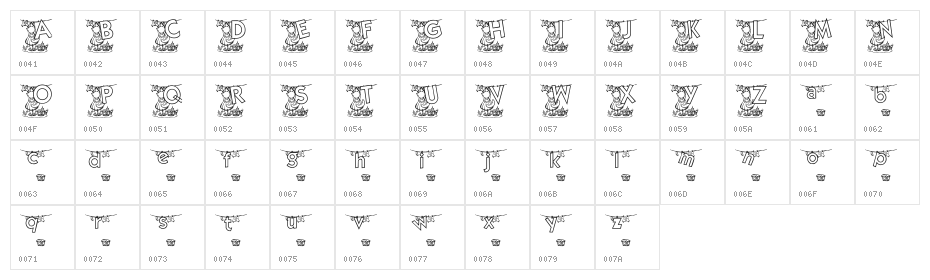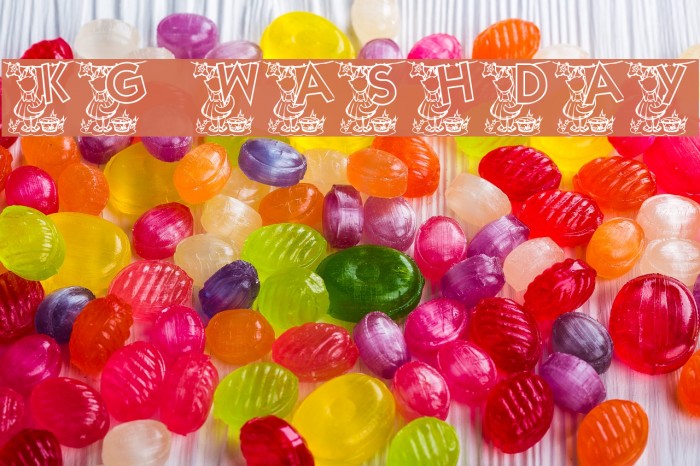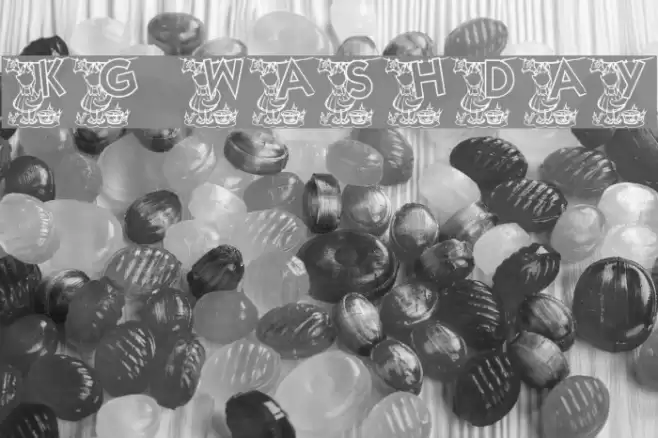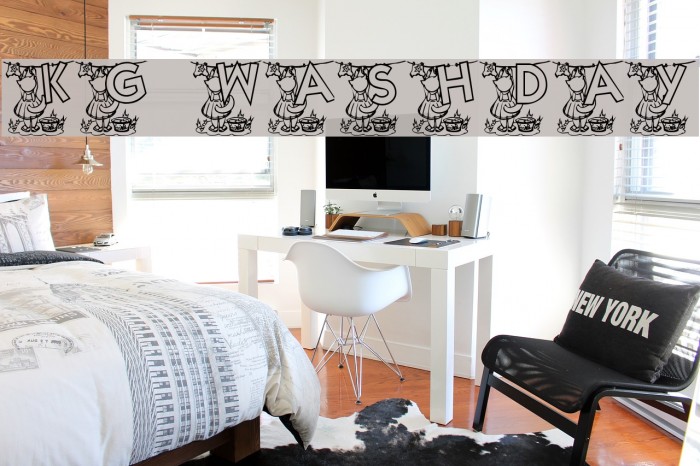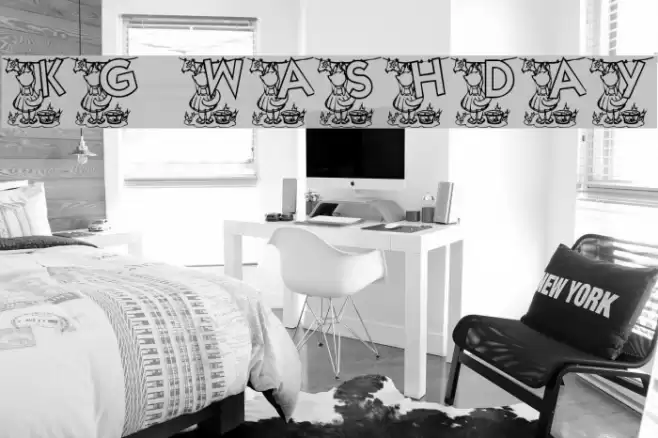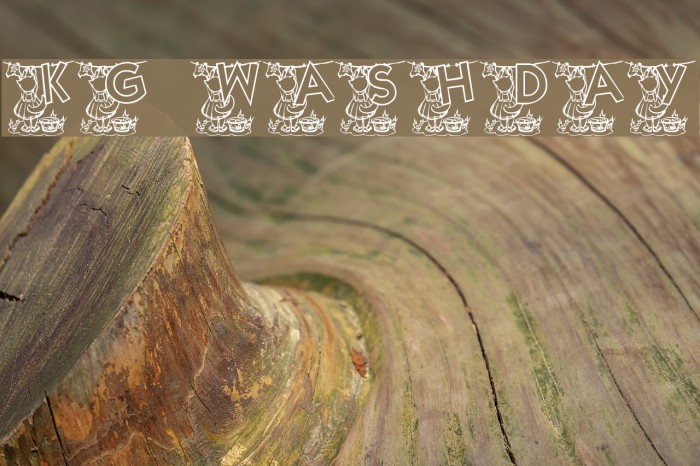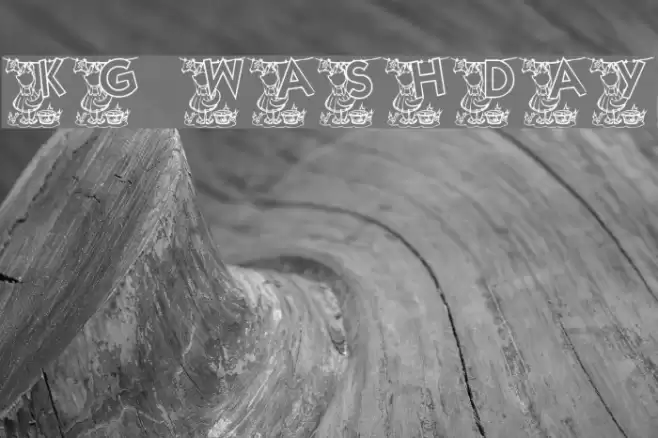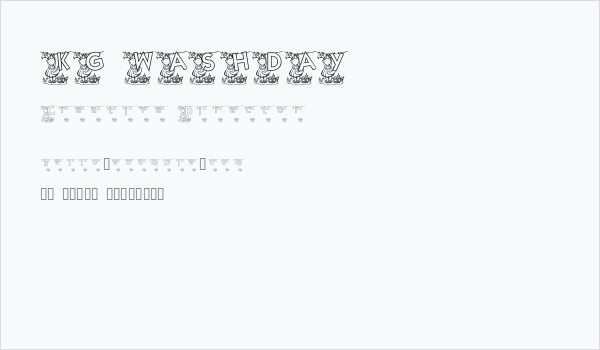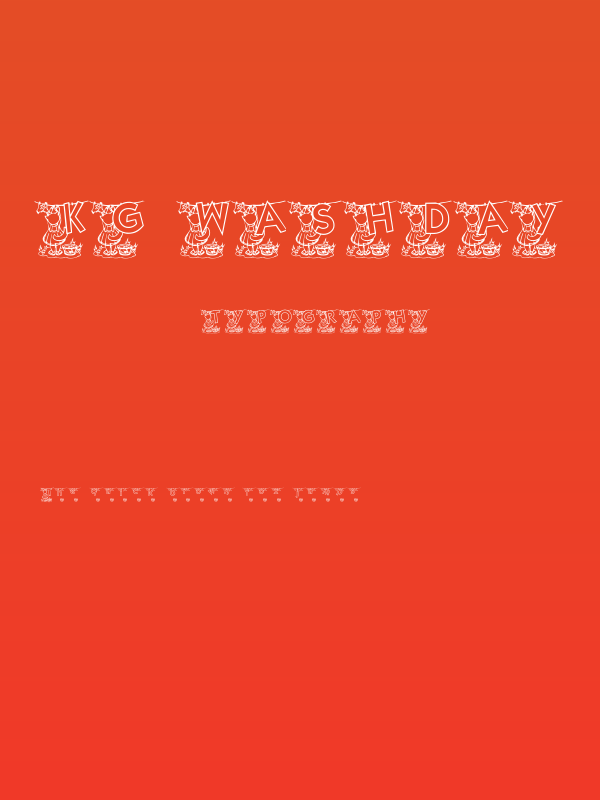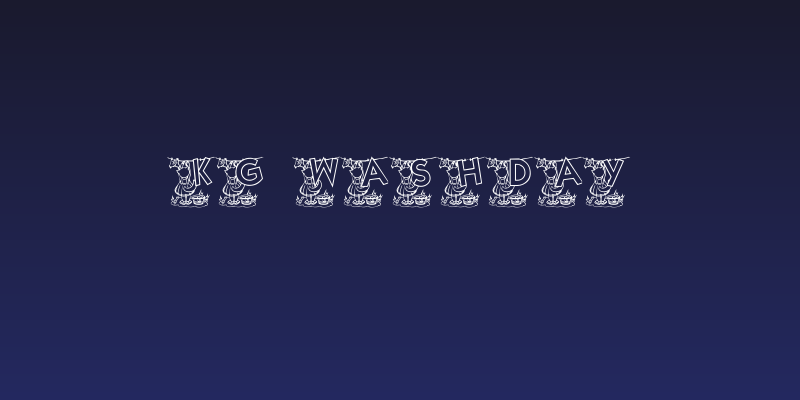
KG WASHDAY Font
KG WASHDAY Description
This whimsical and playful font features letters hanging on a clothesline, each character accompanied by a small illustration of a laundry basket. The uppercase letters are bold and prominent, while the lowercase letters are slightly tilted, adding a casual and fun vibe. The font is decorative, with a hand-drawn style that gives it a unique and charming appearance. The characters are evenly spaced, ensuring readability despite the decorative elements. This font is perfect for projects that require a lighthearted and creative touch, such as children's books, playful invitations, or themed posters.
| Proposed Projects | Children's books, playful invitations, themed posters, educational materials. |